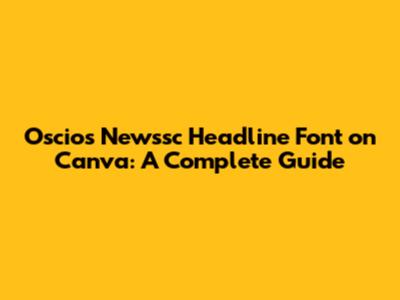
Oscios Newssc Headline Font On Canva: A Complete Guide
What is Oscios Newssc Font?
Before we jump into using it on Canva, let's understand what makes Oscios Newssc so special. Oscios Newssc is a modern sans-serif typeface known for its clean lines and readability. It's designed to make headlines pop, making it a favorite among designers and marketers. Its versatility allows it to be used in various design contexts, from website headers to social media graphics. The font exudes a sense of professionalism and modernity, making it ideal for news outlets, corporate communications, and branding materials. The clear and distinct letterforms ensure that your message is easily conveyed, even at smaller sizes, which is crucial for maintaining clarity across different platforms and devices. Furthermore, Oscios Newssc's balanced proportions and subtle details contribute to its overall aesthetic appeal, making it a reliable choice for designers aiming to create visually engaging and impactful content. Its adaptability to different design styles and themes allows it to seamlessly integrate into any project, enhancing the visual hierarchy and ensuring that the headline stands out. This font is not just about aesthetics; it's about effective communication and creating a lasting impression on your audience. With its sleek design and broad applicability, Oscios Newssc is a must-have in any designer's toolkit. Its consistent performance across various media ensures that your message is always delivered with clarity and impact, solidifying its position as a go-to font for professional and creative endeavors alike.
Why Use Oscios Newssc for Headlines?
Using the right font for your headlines can make or break your design. Oscios Newssc is particularly effective because it's designed for impact. Its strong, clear letterforms ensure readability, even at a glance. This is crucial in today's fast-paced digital world, where attention spans are shorter than ever. When choosing a font for headlines, readability is paramount. Oscios Newssc excels in this area, providing a clean and distinct appearance that makes it easy for readers to quickly grasp the message. Its modern sans-serif design also gives it a contemporary feel, which can help your content look fresh and up-to-date. Moreover, the font's versatility allows it to be used in a variety of contexts, from serious news articles to engaging social media posts. The consistent letter spacing and balanced proportions contribute to its overall visual harmony, making it a pleasure to read. Using Oscios Newssc can also enhance the professional appearance of your designs, conveying a sense of authority and credibility. Whether you're creating a blog header, a marketing campaign, or a presentation, this font can help you make a strong first impression. Additionally, the font's scalability ensures that it looks great at any size, whether it's displayed on a large screen or a mobile device. This is particularly important for ensuring a consistent user experience across different platforms. In summary, Oscios Newssc is an excellent choice for headlines due to its readability, modernity, versatility, and scalability, making it an indispensable tool for designers and content creators alike. By leveraging its strengths, you can create headlines that not only grab attention but also effectively communicate your message to your audience.